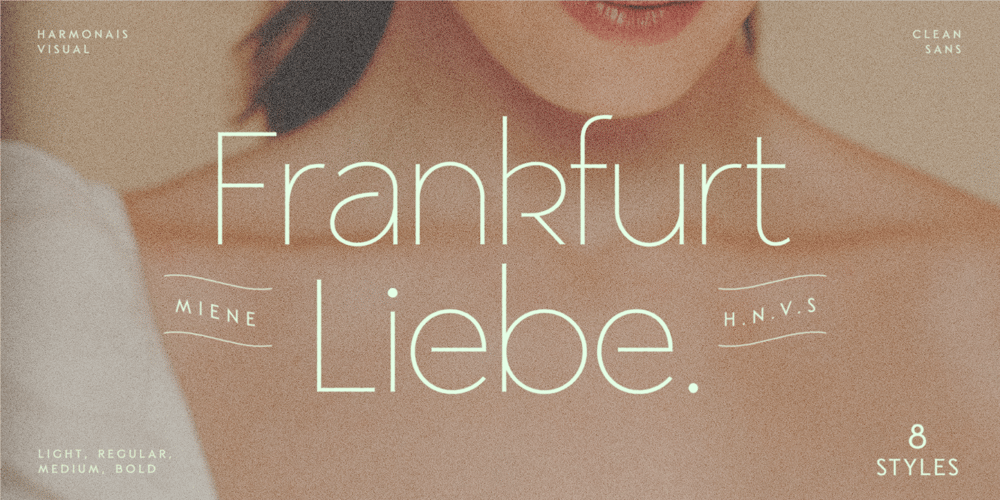
HV Frankfurt Font Family was designed by Max Duy T. and published by Harmonais Visual. HV Frankfurt contains 8 styles and family package options. Frankfurt – a clean, display sans serif with great versatility. With multiple weights, this typeface can be used to create a wide range of designs looking to achieve a fun, modern, and youthful look.